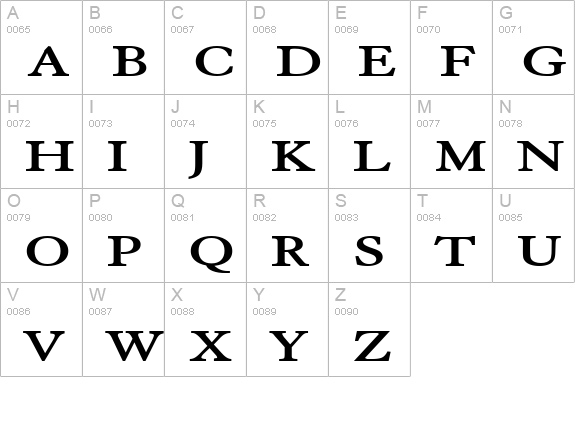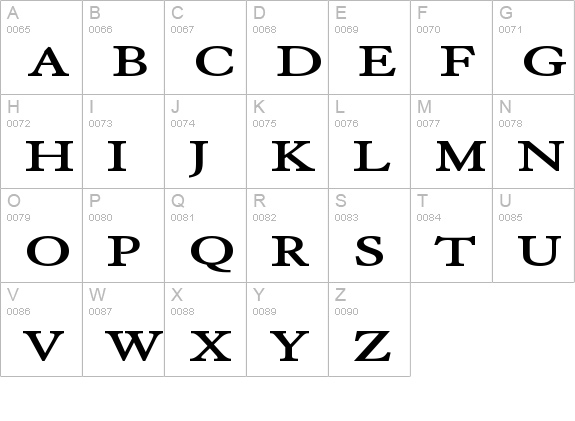
Elephant Extended Bold is a strong, high-contrast, extended-width variant in the Elephant typeface family \xE2\x80\x94 well suited to headlines, attention-grabbing titles, and strong calls-to-action.